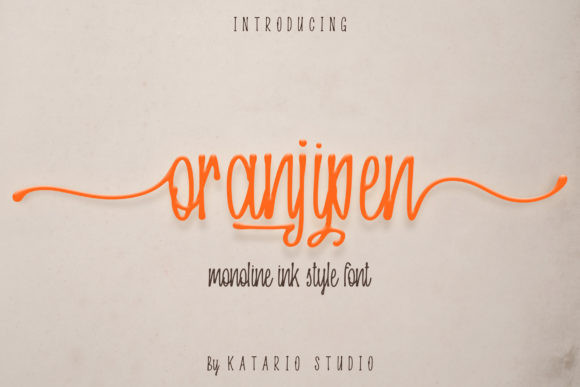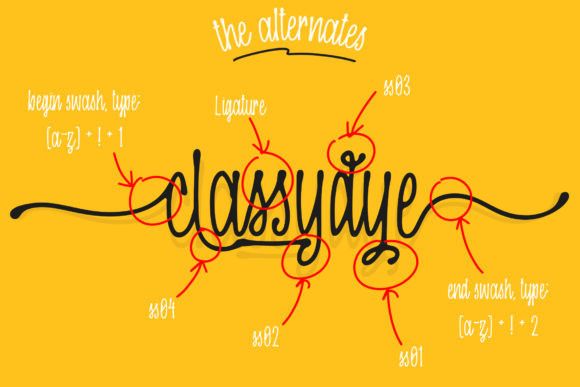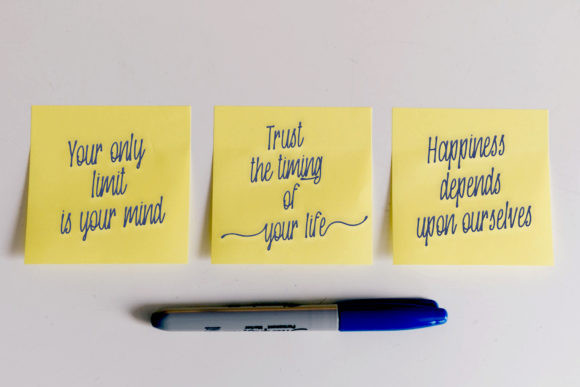
Oranjipen Font
Oranjipen FontOranjipen is a unique script font. Use it to make your ideas even more realistic and create spectacular designs!
This font is PUA encoded which means you can access all of the glyphs and swashes with ease!